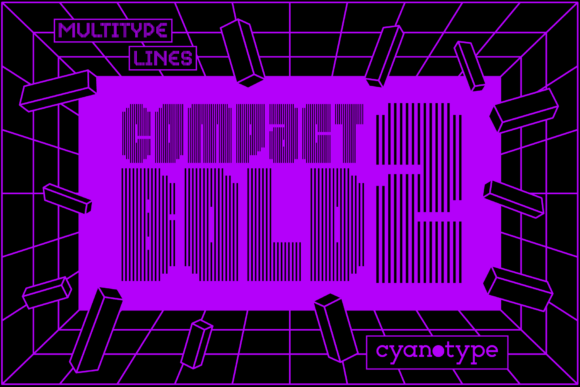
**Introducing MultiType Lines Compact Bold 2 Font: The Pixelated Masterpiece for Your Christmas Designs**
Prepare to be mesmerized by MultiType Lines Compact Bold 2 Font, a captivating decorative font that will infuse your Christmas creations with an extraordinary pixelated charm. This font is not just a collection of letters; it's an invitation to step into a world of digital artistry, where each character dances with its own unique shape and style.
Imagine your Christmas cards adorned with the whimsical glow of pixelated letters, your festive posters bursting with a distorted yet trendy flair, and your social media posts sparkling with a touch of digital magic. MultiType Lines Compact Bold 2 Font empowers you to unleash your creativity and leave a lasting impression on every design you create.
With MultiType Lines Compact Bold 2 Font, the possibilities are as endless as your imagination. Craft eye-catching logos that demand attention, design stunning website headers that captivate visitors, or create enchanting invitations that set the tone for a truly magical Christmas celebration. The power to create is in your hands!
So, if you're ready to embrace the digital revolution and create Christmas designs that will turn heads, look no further than MultiType Lines Compact Bold 2 Font. Let this pixelated masterpiece be your guide as you embark on an unforgettable creative journey.